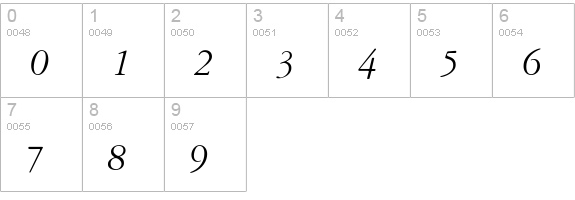
Garamond Reprise SSi Italic Font Details
Garamond Reprise SSi Italic is a distinctive, italic variant in the Garamond typeface family \xE2\x80\x94 well suited to design and typography projects.
Garamond Reprise SSi Italic font is a captivating typeface that effortlessly combines elegance and sophistication. Its sleek and slanted design adds a touch of modernity to the classic Garamond style, making it perfect for any project that requires a touch of refinement. With its delicate curves and graceful strokes, Garamond Reprise SSi Italic font exudes a sense of timeless beauty. It brings a sense of sophistication to any design, whether it be for print materials, logos, or digital creations. One of the most remarkable aspects of Garamond Reprise SSi Italic font is that it is available for free download at FontsMarket.com. This means that you can easily access this stunning typeface and incorporate it into your designs without any cost. FontsMarket.com is a trusted source for high-quality fonts, offering a vast collection of fonts for designers and creatives. By using Garamond Reprise SSi Italic font, you can effortlessly elevate your designs to new heights. Its versatility allows it to be used in a wide range of applications, from branding and advertising to editorial layouts and invitations. Its italic variation adds a touch of flair and uniqueness, making it stand out among other fonts. Whether you are a professional designer or someone who simply appreciates the beauty of typography, Garamond Reprise SSi Italic font is a must-have in your font library. Its timeless appeal and free availability make it an invaluable resource for any creative project. Download it today at FontsMarket.com and unlock the potential to create stunning designs that are sure to leave a lasting impression.